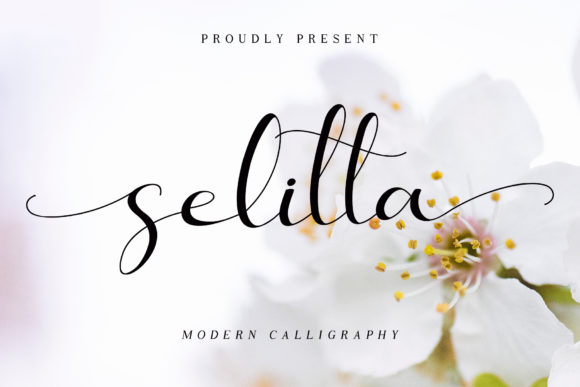
Unleash your creativity with Selitta Font, an enchanting script font that exudes warmth and elegance. Its delicate strokes and flowing curves capture the beauty of handwritten letters, adding a personal touch to your designs. Selitta Font is the perfect choice for creating stunning party posters that spark joy and excitement.
Design captivating invitations that set the tone for a memorable celebration. With Selitta Font, your words will dance across the page, inviting guests to an unforgettable experience. Create eye-catching social media posts that grab attention and leave a lasting impression. Selitta Font's charm will make your messages shine, whether announcing a special event or sharing heartfelt moments.
Transform your stationery into works of art. Selitta Font will elevate your letters, cards, and notes with its graceful presence. Its soft lines add a touch of sophistication, making every correspondence a delight to read. Unleash your artistic flair and create unique designs that reflect your personal style.
Selitta Font's versatility knows no bounds. It effortlessly complements a variety of projects, from branding and logos to website design and marketing materials. Its timeless beauty adds a touch of class and sophistication to any project, leaving a lasting impact on your audience.
Embrace the magic of Selitta Font and let your creativity soar. Its enchanting aura will captivate hearts and leave a lasting impression. It's the perfect font for creating party posters that ignite the imagination and make every celebration truly special.